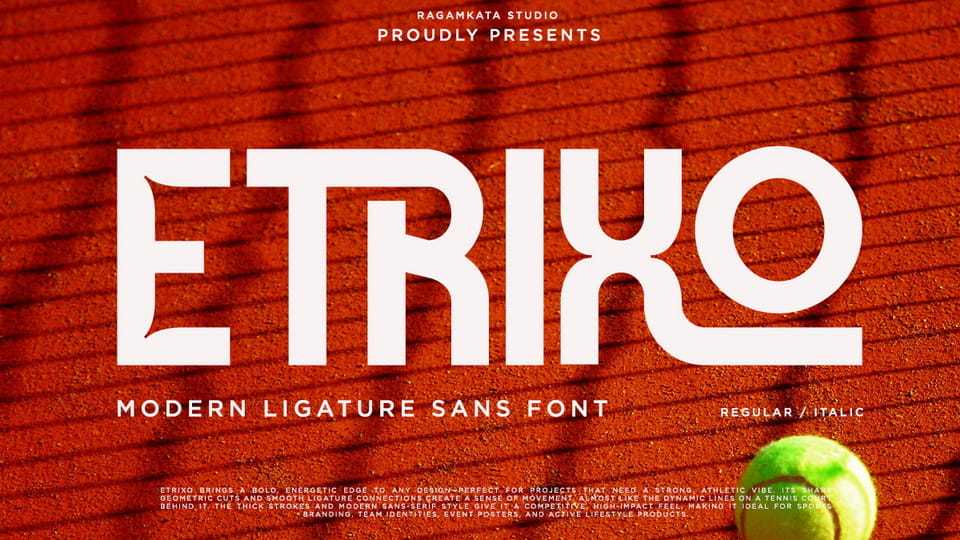
Download Etrixo font, a bold, condensed sporty typeface crafted to bring excitement and impact to your creative projects. Its sturdy, narrow letterforms create a powerful visual presence.